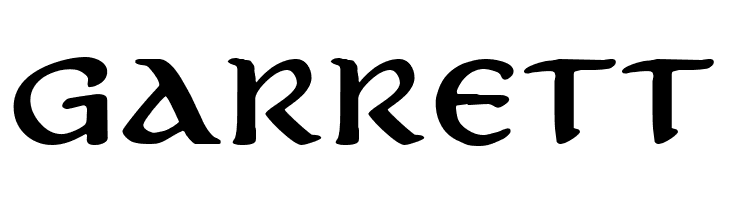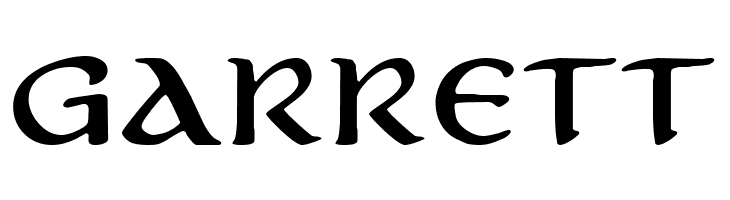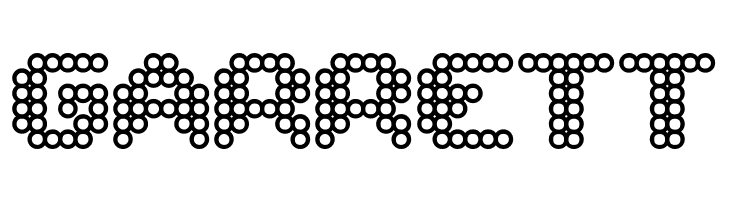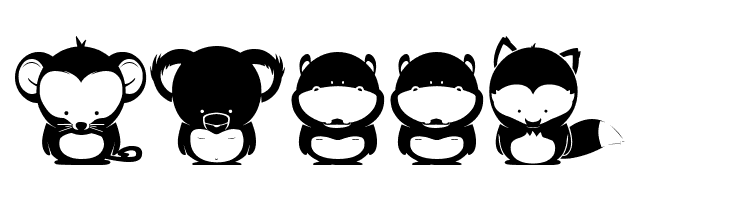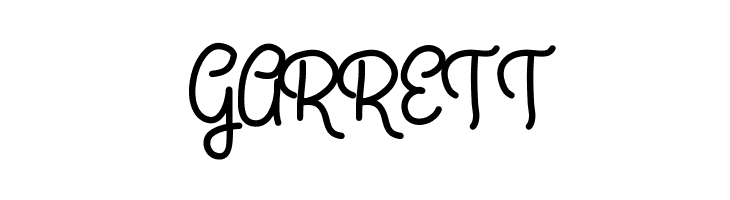
• Anime Queen
• AnimeAce2.0BB
A playful, bold font with rounded, hand-drawn letterforms.
• AnimeAce2.0BB-Bold
A bold, playful handwritten font with a dynamic and energetic style.
• AnimeAce2.0BB-Italic
A playful, italicized handwritten font with smooth, bold strokes.
• AnimeAce3SK-Bold
A bold, playful font with rounded, cartoon-like characters and a casual, handwritten style.
• AnimeAce3SK-BoldItalic
A bold, italicized font with a playful and dynamic style.
• AnimeAce3SK-Italic
A playful, italicized handwritten font with smooth, rounded strokes.
• AnimeAce3SK-Regular
A playful, handwritten-style font with rounded, informal letterforms.
• ANIMEQUEEN
A modern, dot-based font with a digital and playful aesthetic.
• ANIMEQUEEN
A playful, dot-based decorative font with a pixelated, retro digital style.
• Animoto Bubbly
A playful, bubbly font with circular, overlapping shapes and a modern flair.
• Animox
Cartoon animal dingbat font with bold, playful characters.
• Anindya Meita Demo
A flowing, cursive font with elegant, interconnected characters.
• AniPetiteHotel
• AniRandy
• Aniron
A medieval-inspired font with sharp serifs and unique letterforms, ideal for fantasy themes.
• Aniron Bold
A bold, medieval-inspired font with sharp, angular lines and decorative elements.
• AnironC
A decorative, medieval-inspired font with sharp, angular strokes and ornate details.
• AnironC Bold
A bold, medieval-inspired font with sharp angles and smooth curves.
• Anisa Fonfon Regular